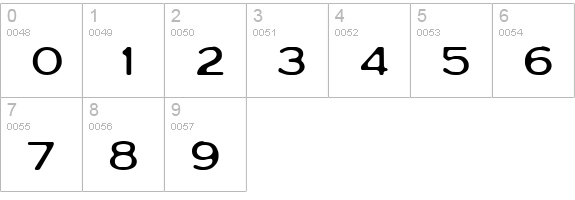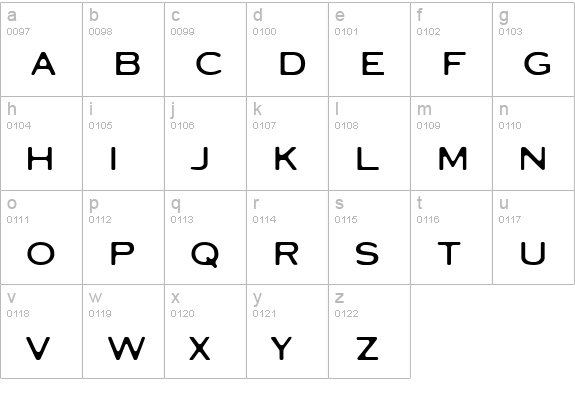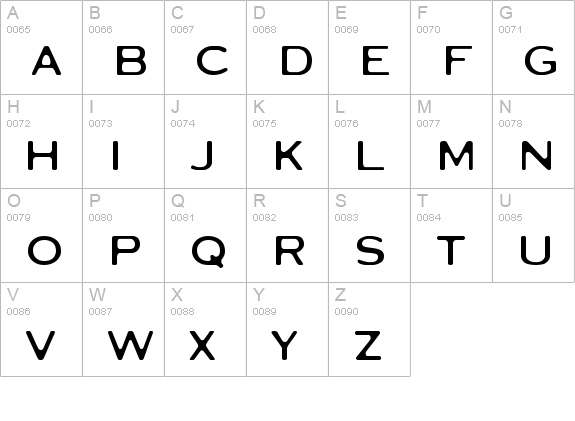
Introducing Balotro, a captivating and versatile font that effortlessly combines elegance and modernity. With its clean lines and unique letterforms, Balotro is the perfect choice for a wide range of creative projects. Whether you're designing logos, branding materials, or creating eye-catching headlines, this font is sure to make a lasting impression. Balotro's distinct and carefully crafted characters exude a sense of sophistication and style. Each letter is meticulously designed to maintain the perfect balance between legibility and artistic flair. The smooth curves and sharp edges of Balotro create a harmonious visual experience that is both pleasing to the eye and easy to read. One of the most remarkable aspects of Balotro is that it is free to use. That's right, this exceptional font is freely available to download at FontsMarket.com. This means that you can enhance your creative projects without any financial constraints, allowing your imagination to run wild with limitless possibilities. Whether you're a professional designer or an aspiring artist, Balotro offers a world of creative potential at your fingertips. Its versatility allows it to seamlessly adapt to various design styles, making it the ideal choice for both print and digital media. From elegant invitations to captivating posters, Balotro will effortlessly elevate your designs to new heights. Don't miss out on the opportunity to enhance your creative arsenal with Balotro. Download this exceptional font for free at FontsMarket.com and unlock a world of creative possibilities. With Balotro, your designs will stand out from the crowd and leave a lasting impression on your audience.